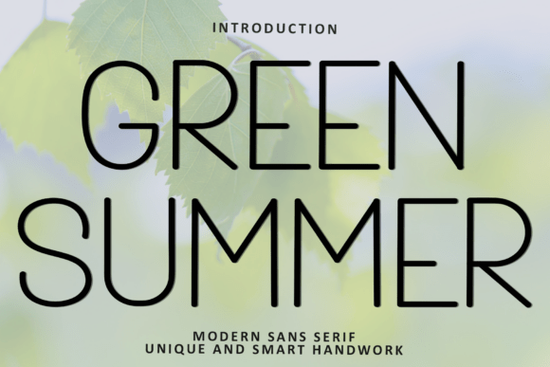
If you’re looking for a font that feels friendly and approachable, Green Summer Font is worth a closer look. It has a soft, unique touch that makes it stand out without being loud. The letters are drawn with distinctive strokes, giving each character a gentle personality. This makes it a solid choice for design projects where you want to add warmth and character.
What can you design with Green Summer Font?
Creative hobbyists and small business owners often look for fonts that can handle a variety of uses without needing constant adjustments. Green Summer delivers on that front. Its natural style fits nicely into:
- Print-on-demand products – think t-shirts, mugs, and tote bags where a handwritten touch feels personal.
- Digital invitations and cards – the soft strokes make wedding or birthday invites feel more heartfelt.
- Social media posts and quotes – it adds a layer of calm and sincerity to your captions.
- Crafting projects – from scrapbooking to vinyl decals, the font holds up well in physical formats.
- Logos and branding – especially for businesses that want a friendly, down-to-earth image.
Because each letter has its own subtle variation, you don’t need to add extra effects to make it interesting. The font does the work for you.
How does this font compare to other sans-serif options?
If you’re used to working with clean, modern sans-serifs, Green Summer feels different. It’s not as geometric as a typical sans-serif. Instead, it borrows some of the charm you’d expect from a hand-lettered style, while keeping enough consistency to be readable in longer text blocks.
What makes the font easy to work with?
When pairing Green Summer with other typefaces, keep the mood consistent. A simple sans-serif like the ones mentioned earlier can balance the softness. Or you can let it stand alone it’s strong enough to carry a single-word logo or short message on its own.
Quick tips for using Green Summer Font effectively
- Keep spacing simple. The font already has a natural rhythm, so avoid too much letter spacing.
- Use it at medium sizes. It shines best at 18pt–48pt where the stroke details are visible.
- Pair with muted backgrounds. Soft pastels or light textures let the font stand out without competing.
- Avoid all-caps for long sentences. The lowercase form is what gives the font its friendly character.
Next step: Pick a simple design you’ve been working on like a quote graphic or a product label and swap in Green Summer. See how it changes the feel. That’s the best way to decide if it fits your style.